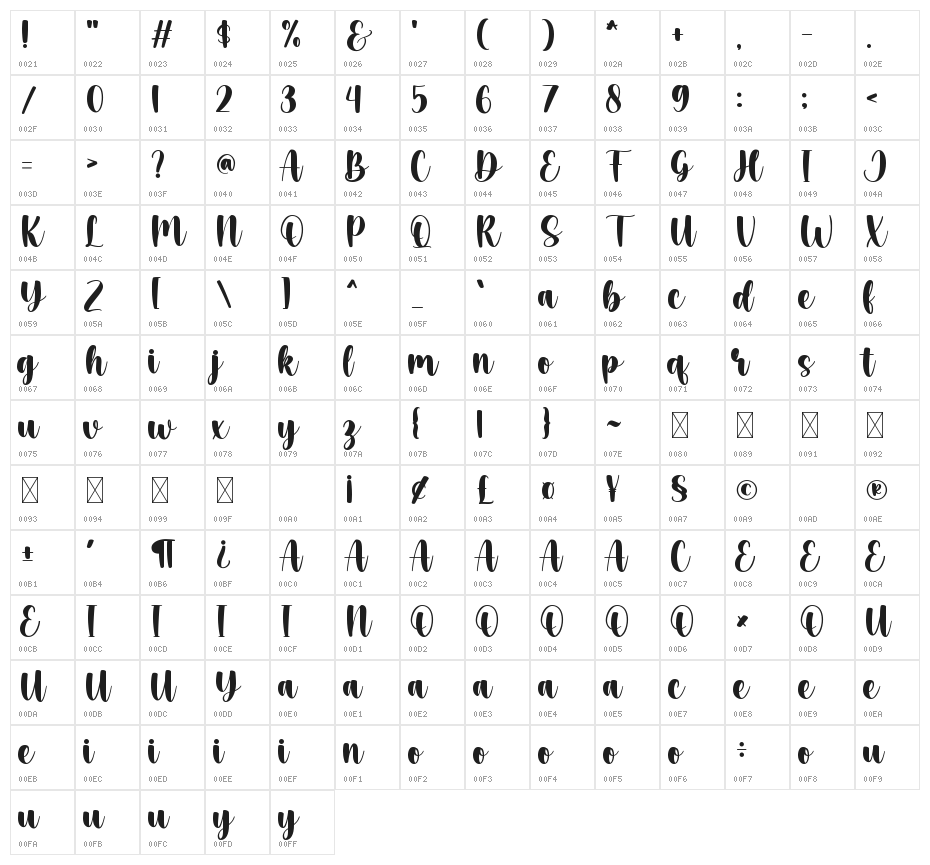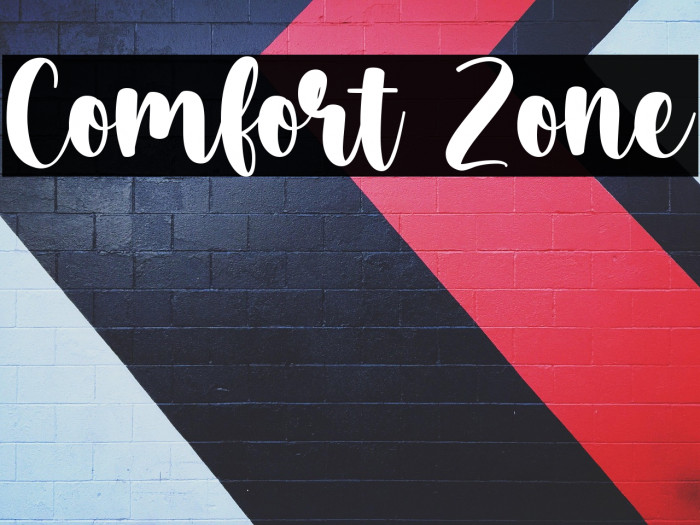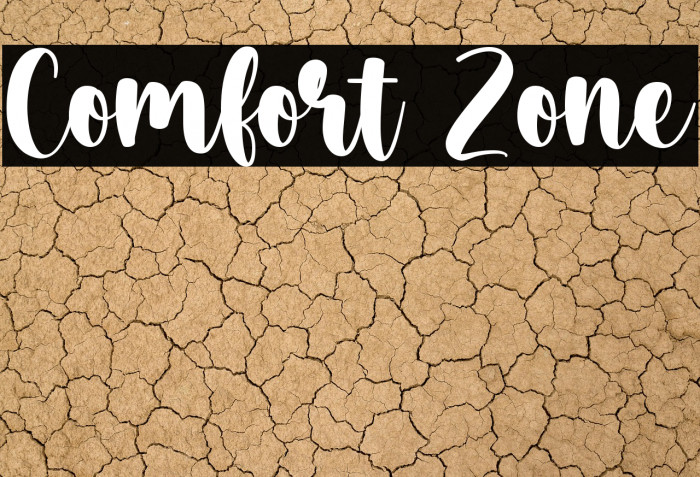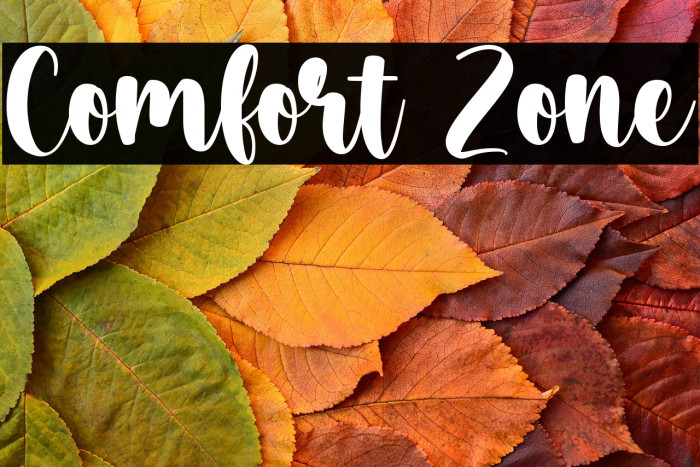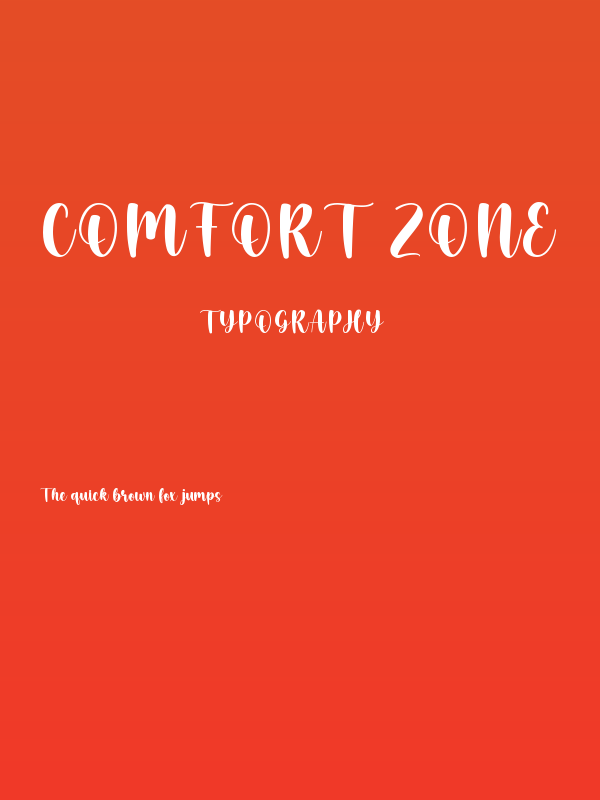
Comfort Zone Font
Comfort Zone Description
A bold, flowing script font with a modern, decorative style, featuring high contrast and wide character spacing.
| Use Case | Logos, Invitations |
| Proposed Projects | Invitations, greeting cards, logos, branding. |